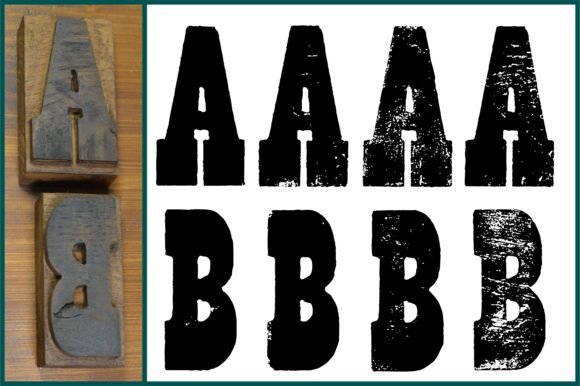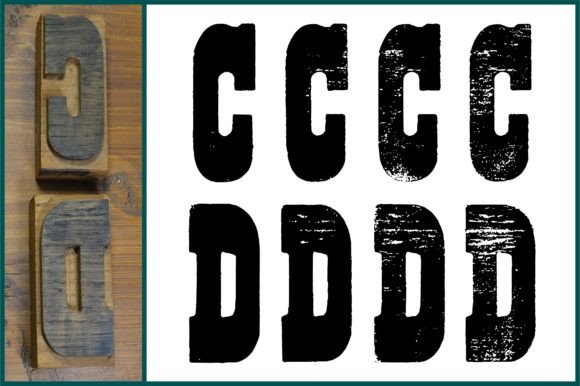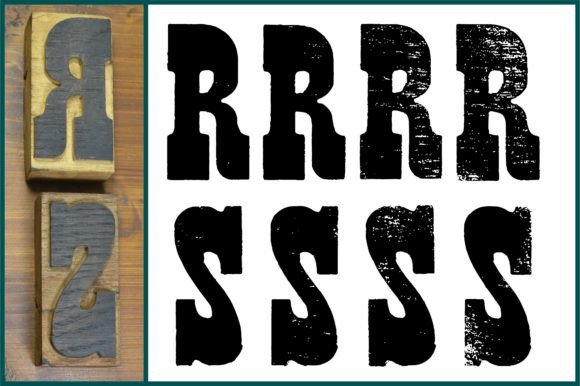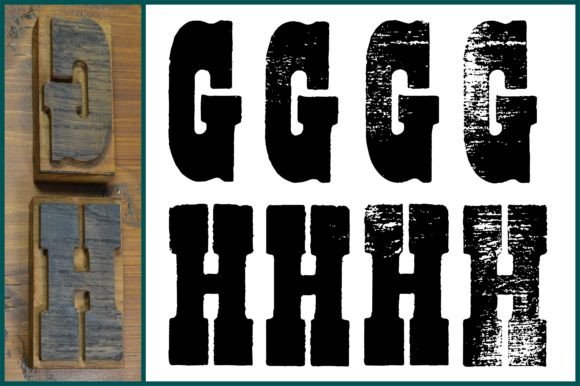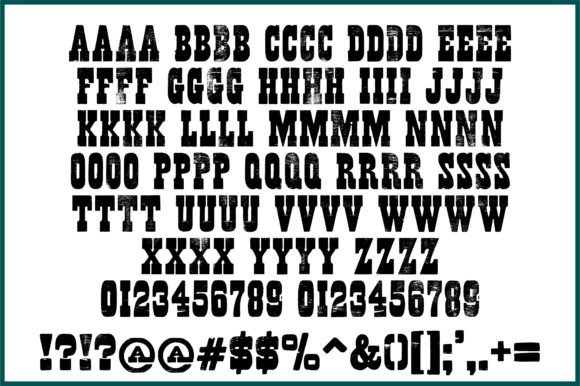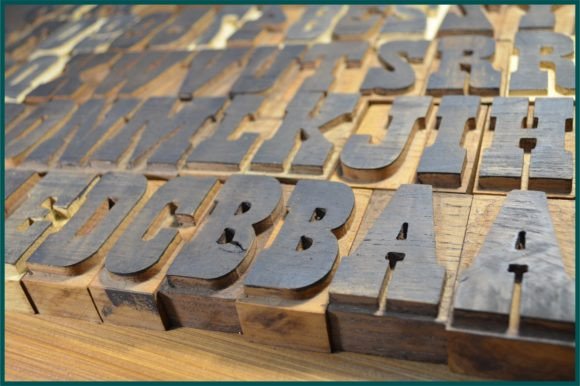
Bear Bar Font: A Unique, Handcrafted Typeface with a Tactile Twist
In the world of typography, few fonts have managed to capture the essence of traditional craftsmanship as beautifully as Bear Bar Font. This distinctive typeface, born from a blend of old-world techniques and modern digital technology, offers a refreshing alternative to the plethora of digitally created fonts that dominate the design landscape. In this article, we’ll delve into the making of Bear Bar Font, exploring its unique characteristics, the meticulous process behind its creation, and why it has become a coveted choice among designers and crafters alike.
The Making of Bear Bar Font: A Labor of Love
The story of Bear Bar Font begins with a meticulous process that harks back to the era of letterpress printing. Unlike fonts created purely through digital means, Bear Bar’s glyphs were painstakingly carved from wood, a method that imbues each character with an unmistakable tactile quality. This process involves several steps:
- Carving: Each glyph was carefully carved from wood, a process that requires precision and patience. This step not only ensures that every character is unique but also lays the foundation for the font’s distinctive texture.
- Pressing: After carving, the wooden glyphs were pressed onto paper, creating tangible impressions that reflect the organic nature of the material.
- Scanning and Digitization: The pressed glyphs were then scanned and digitized, transforming them into a digital format without losing the essence of their handcrafted origins.
This blend of traditional craftsmanship and modern technology results in a typeface that appears tactile and real, offering a refreshing departure from the sterile look of digitally created fonts.
Unique Features of Bear Bar Font
Bear Bar Font is a full cap typeface, available in two distinct styles – light and heavy. This range allows designers to choose the weight that best suits their project’s needs, from subtle headings to bold statements. One of the most striking features of Bear Bar Font is its texture. Unlike many fonts that rely on repetitive texture patterns, Bear Bar boasts a unique texture for each glyph. This variation ensures that the font never looks monotonous or repetitive, adding a layer of depth and interest to any design.
The Artisanal Appeal of Bear Bar Font
The texture of Bear Bar Font is not just a superficial effect; it’s a genuine reflection of the font’s artisanal origins. Since all textures were freshly made, no two glyphs share the same texture pattern. This characteristic makes Bear Bar Font particularly appealing to designers and crafters looking for a typeface that tells a story. Whether it’s used for branding, packaging, or editorial design, Bear Bar Font brings a sense of authenticity and craftsmanship to any project.
Why Designers and Crafters Love Bear Bar Font
Designers and crafters are drawn to Bear Bar Font for several reasons:
- Uniqueness: In a sea of generic, digitally created fonts, Bear Bar stands out with its handcrafted charm.
- Versatility: With its two styles, Bear Bar Font can be used across a wide range of applications, from elegant branding to robust packaging.
- Tactile Quality: The font’s texture adds a sensory dimension to designs, inviting viewers to engage more closely with the material.
Bear Bar Font is more than just a typeface; it’s a statement of craftsmanship and individuality. Its creation process, which marries traditional techniques with digital technology, results in a font that is not only aesthetically pleasing but also rich in character.
| Author | wtl.typography |
Bear Bar Font represents a beautiful fusion of the old and the new, offering designers and crafters a unique tool for expressing their creativity. Its handcrafted origins, distinctive texture, and versatile styles make it an invaluable addition to any design project. Whether you’re looking to add a touch of authenticity to your branding or simply seeking a font that stands out from the crowd, Bear Bar Font is an excellent choice. With its roots in traditional craftsmanship and its embrace of modern technology, Bear Bar Font is poised to inspire a new generation of designers and crafters.